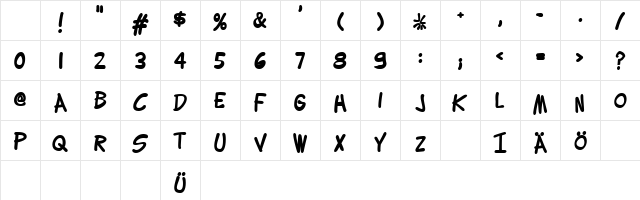
Lettering1 Weird Bold
Design Context for Lettering1 Weird
Lettering1 Weird is a composed and adaptable typeface that performs quietly and consistently across a wide range of design contexts. Its bold stroke weight gives it real presence on the page.
Pro Tip: Use Lettering1 Weird in both headline and body roles to test its range before committing to a single application.